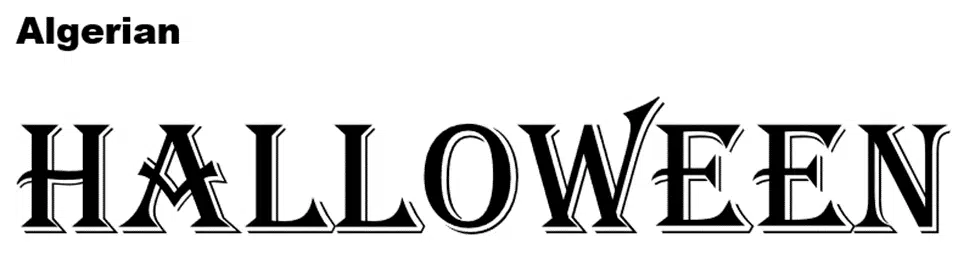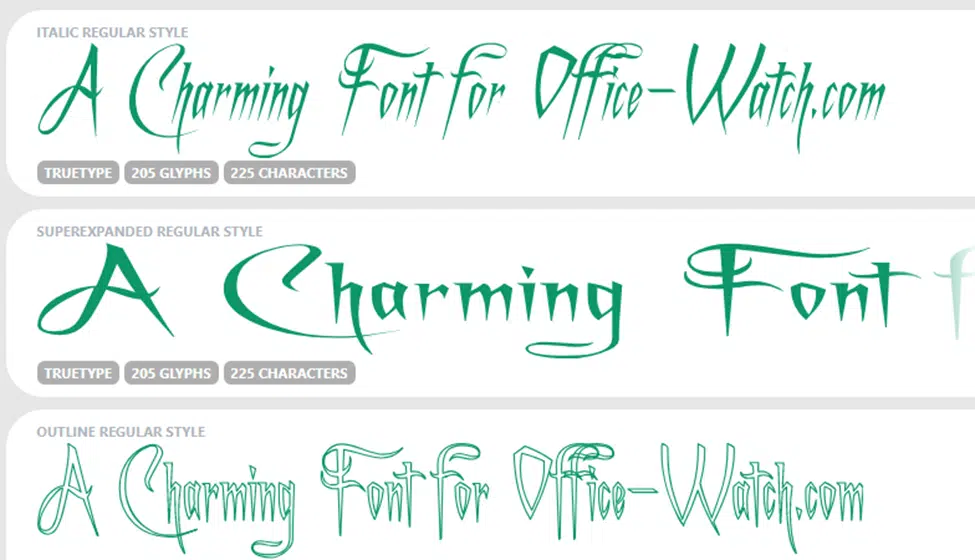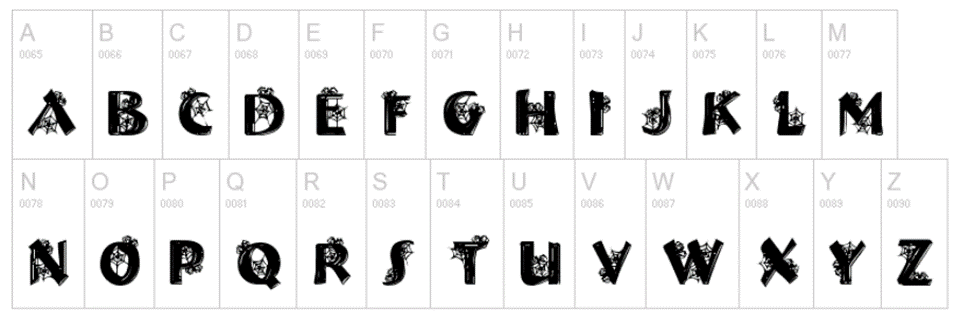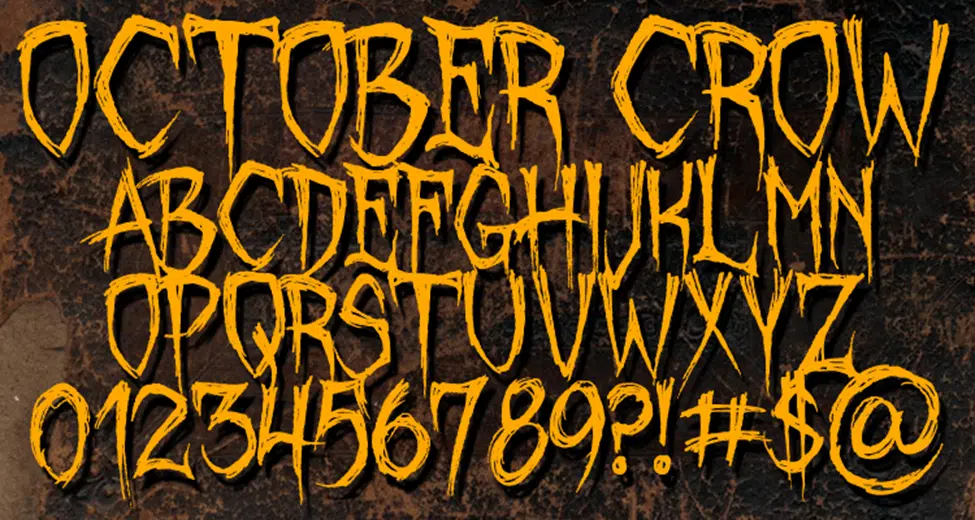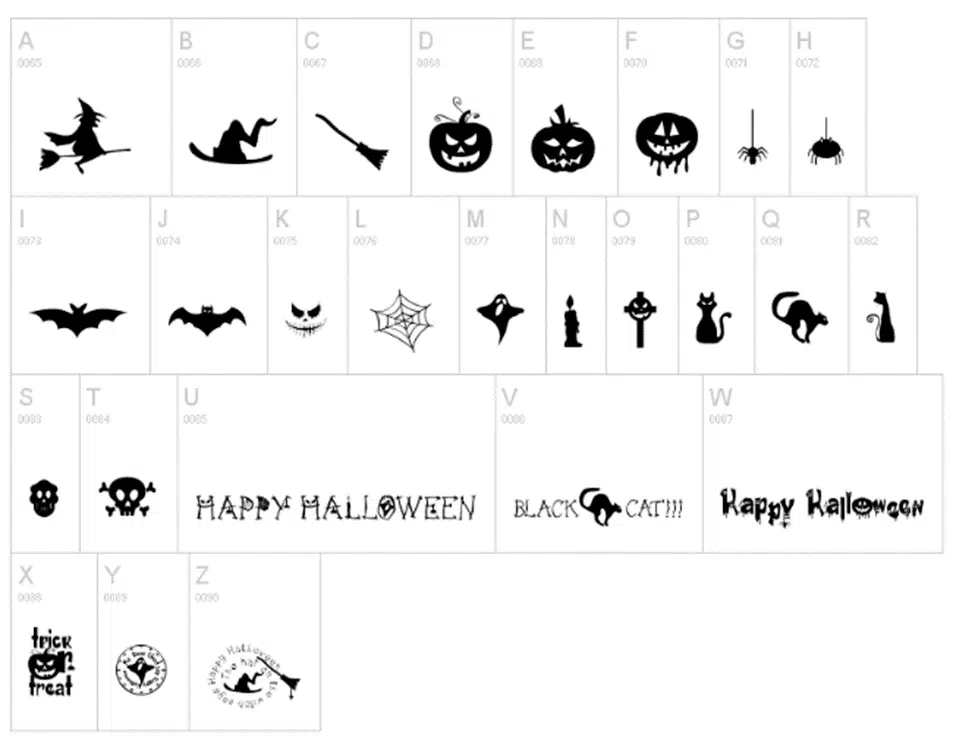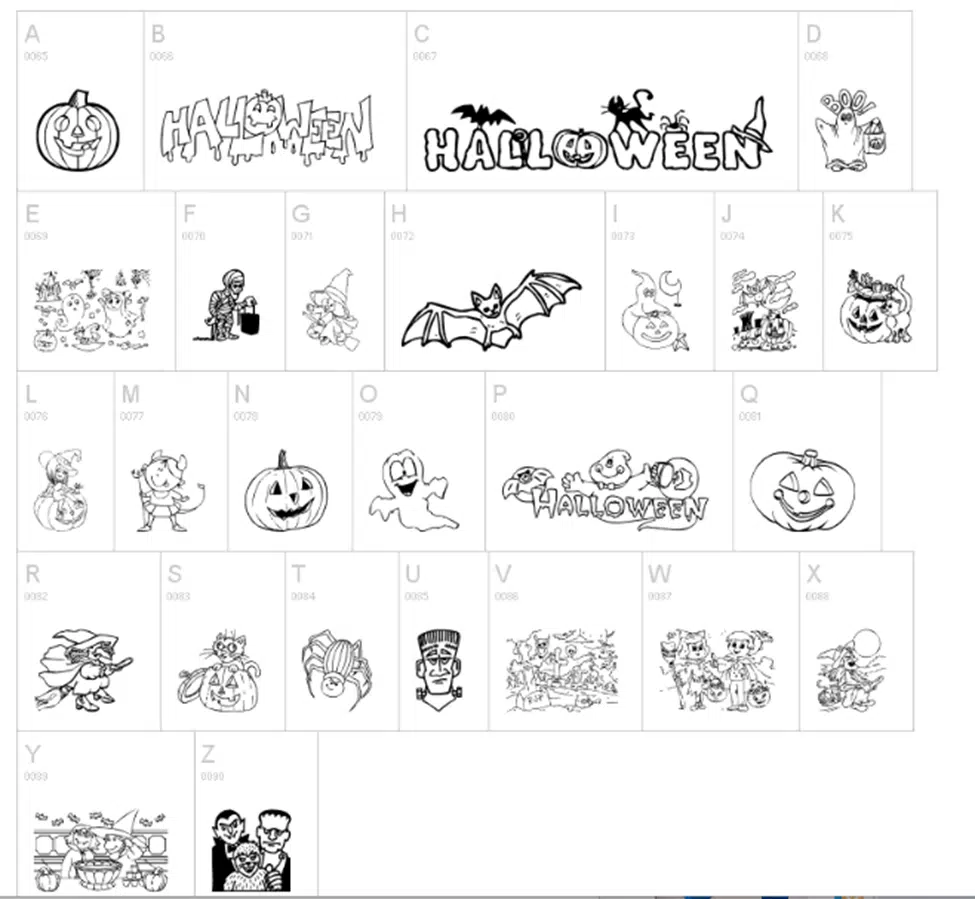
Seven free Halloween fonts for Word, PowerPoint and Office
There are plenty of creepy Halloween themed fonts available for free to work on Windows or Mac with Word, PowerPoint or other Office apps. Here’s seven that caught our eye plus one that you probably already have.
Algerian
There’s only one Windows/Office font that’s remotely Halloween-ish – Algerian – supplied with Microsoft Office.
Aside from that, we have to look further afield for spooky, scary fonts.
A Charming Font
Based on the TV show ‘Charmed’, this font has several styles including italic, expanded and regular across 255 characters. From Fontspace.com
Jack O
No need to carve out a pumpkin with this headings font.  Upper and lower case letters only. Good in large sizes like titles on PowerPoint slides. From dafont.com
Halloween Spider
Capitals with spiderweb extras, also ? . and ! . From daFont.com
October Crow
Capitals only font based on a movie – DaFont.com
Groovy Ghosties
Three styles available, outline, Front or Back “made of incorporeal beings from beyond the grave”. Has a wider range of symbols than most including apostrophes, colon, semi-colon, brackets and even accented letters. See the character table at DaFont.com
Freaky Halloween symbols
A small range of Halloween symbols in demo, personal use version of this font available from DaFont.com .
The full, paid version with more symbols is also available.
Halloween
A more ornate set of Halloween symbols, drawings really to use in large sizes. Also available on DaFont.com